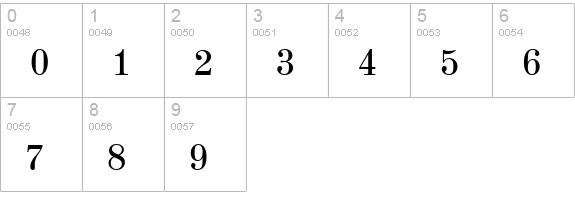
Madeira-Regular Font Details
Madeira-Regular is the standard, neutral variant in the Madeira typeface family \xE2\x80\x94 well suited to general body text, paragraphs, and standard typographic work.
Madeira-Regular is a versatile and elegant font that exudes sophistication and charm. With its timeless design and classic appeal, this font is perfect for a wide range of projects, from branding to print materials. The clean lines and balanced proportions make it easy to read and visually appealing. What sets Madeira-Regular apart is that it is available for free download at FontsMarket.com. This means you can easily access this high-quality font without any cost, making it a valuable addition to your font library. Whether you're a designer looking for a new go-to font or simply want to elevate your projects with a touch of elegance, Madeira-Regular is the perfect choice. Download it today and see the difference it can make in your designs.